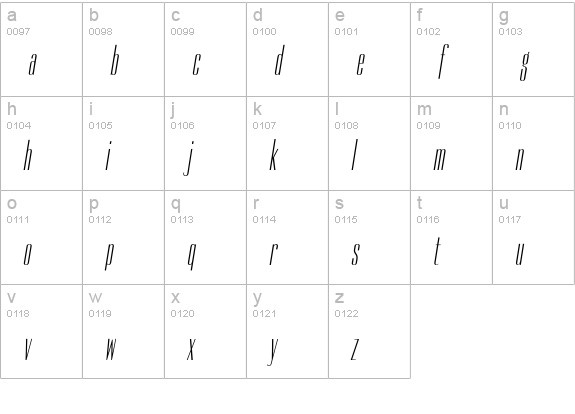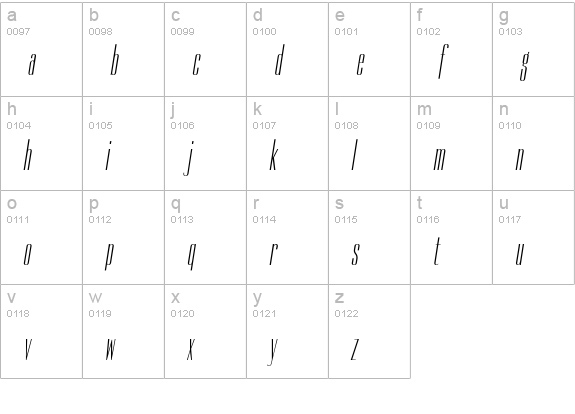
Empire-Italic is a distinctive, italic variant in the Empire typeface family \xE2\x80\x94 well suited to design and typography projects.
The Empire-Italic font is a sophisticated and elegant typeface that exudes luxury and class. With its sleek and stylish letterforms, this font is perfect for adding a touch of sophistication to any design project. The italicized characters of Empire-Italic convey a sense of movement and grace, making it ideal for headlines, branding, and editorial design. What's even better is that Empire-Italic is available for free download at FontsMarket.com. This means you can easily access and use this stunning font in your projects without any cost. Don't miss out on the opportunity to elevate your designs with the timeless beauty of Empire-Italic. Download it now and add a touch of elegance to your creations.